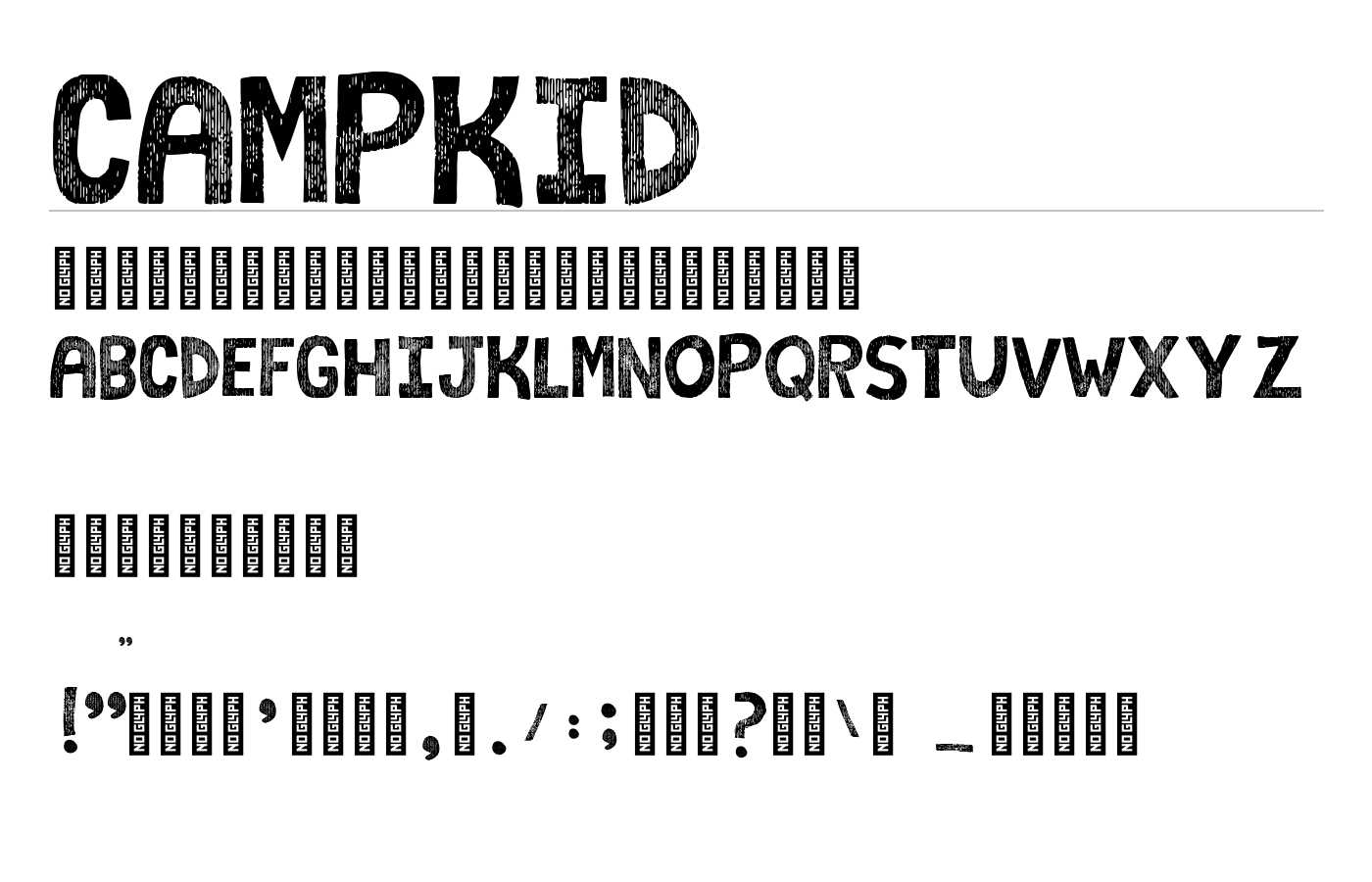
Campkid is a bold, playful sans serif font with a hand-drawn, textured style that gives it a casual, rustic feel. Its irregular stroke patterns and slightly condensed letterforms make it perfect for projects that want to convey a youthful, adventurous, and handmade vibe, such as outdoor camp branding, children's books, or creative posters. This font works best in headlines and display uses where its charm and personality can stand out.
campkid Font
About campkid Font
| Font family | campkid Font |
| Designer | kristina klaffke |